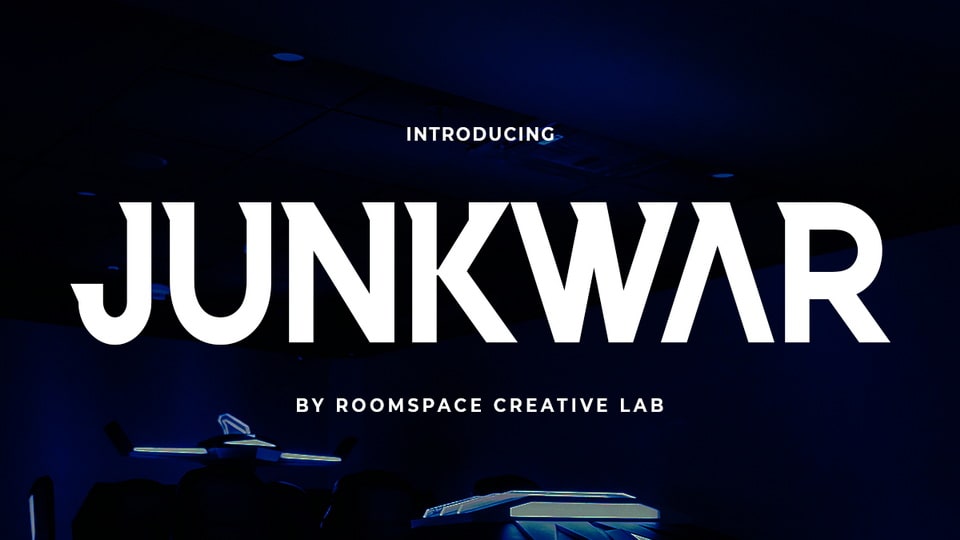
Download Junkwar font, a bold and dynamic game typeface where modern energy meets refined precision. Designed to capture attention, Junkwar blends sharp edges with a clean, contemporary aesthetic.